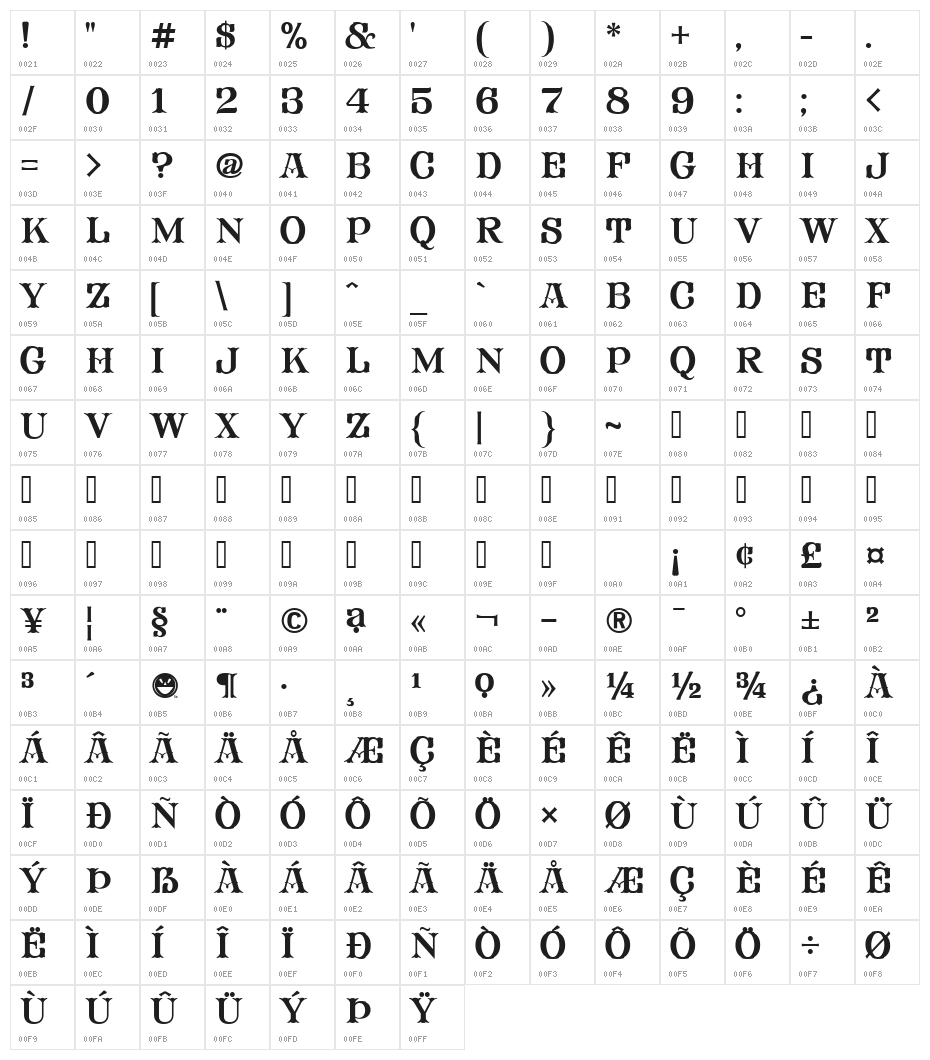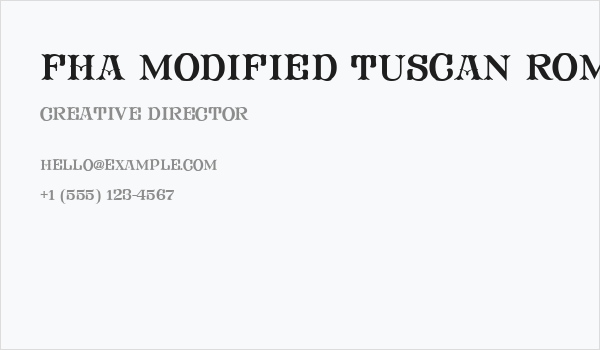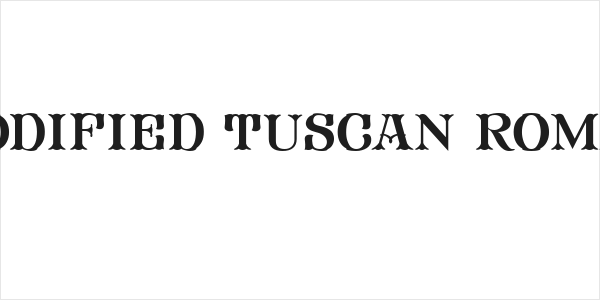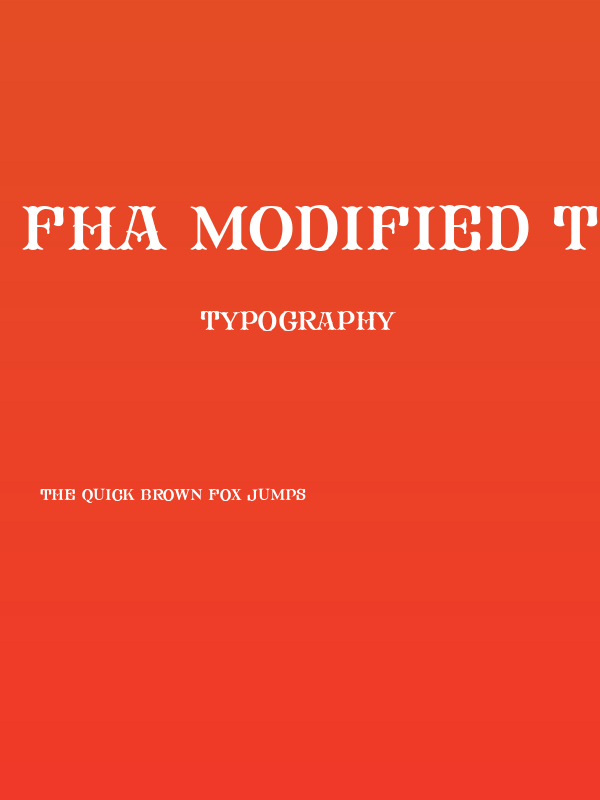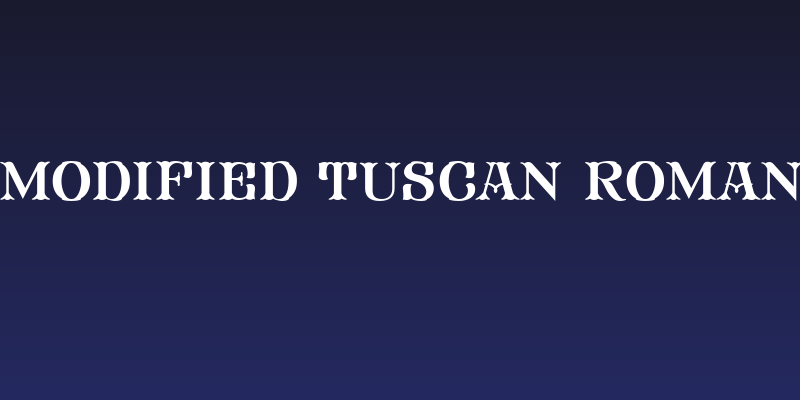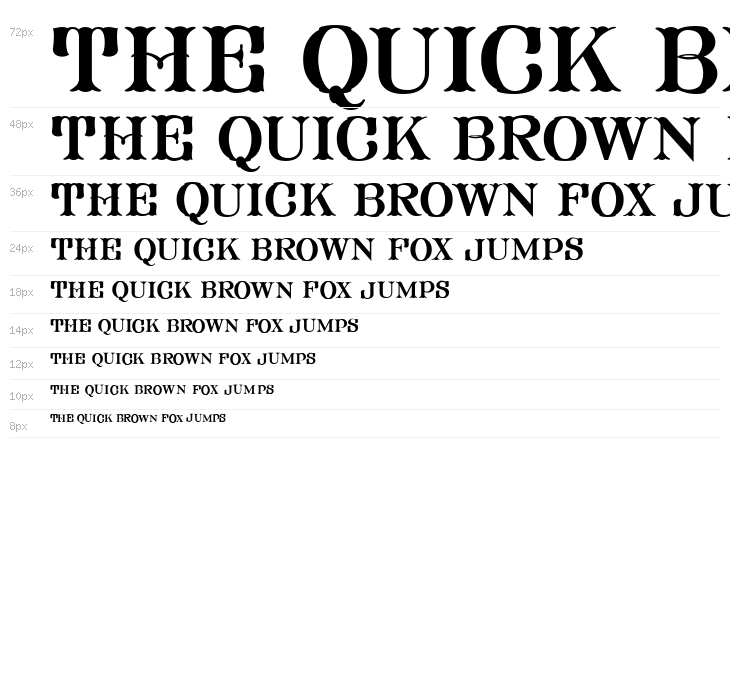
FHA Modified Tuscan Roman NCV Font
FHA Modified Tuscan Roman NCV Description
This font features a bold and decorative style with distinct serifs and a vintage flair. Each character is intricately designed with unique embellishments that give it a classic yet ornate appearance. The uppercase letters are particularly striking, with sharp angles and pronounced curves that create a sense of elegance and sophistication. The numbers and special characters maintain this decorative theme, ensuring consistency across all glyphs. The overall design is reminiscent of traditional Roman typefaces, yet it incorporates modern elements that make it suitable for contemporary use.
| Proposed Projects | Ideal for projects that require a classic and decorative touch, such as vintage posters, book covers, branding materials, and event invitations. |